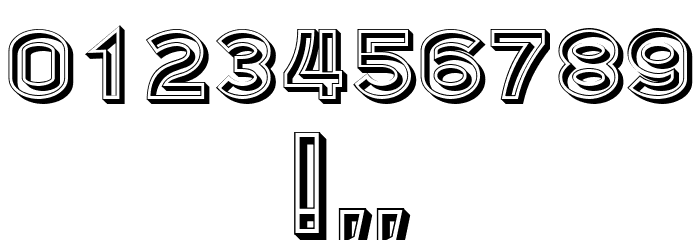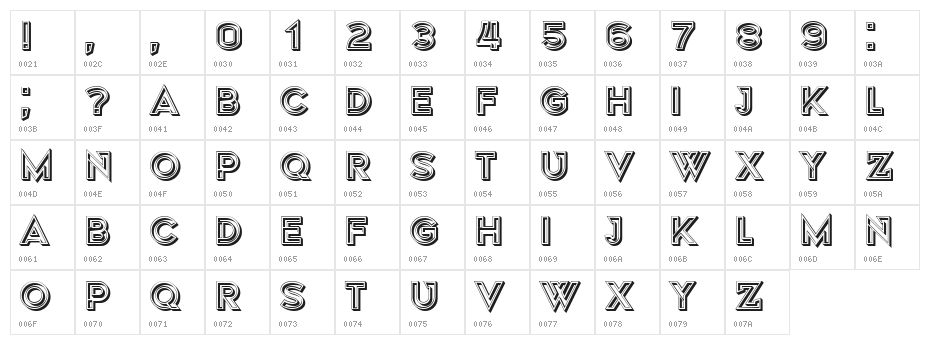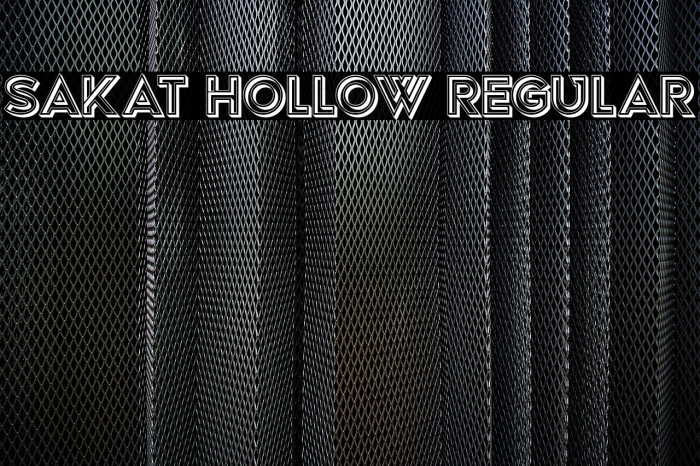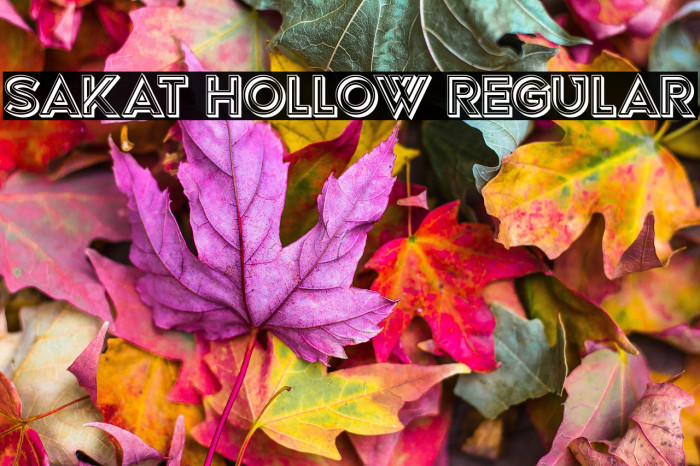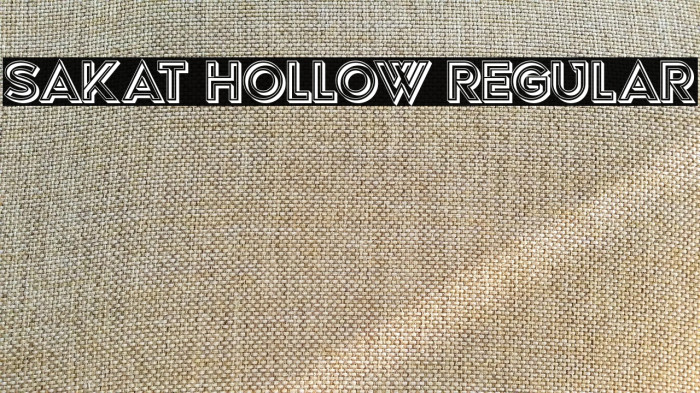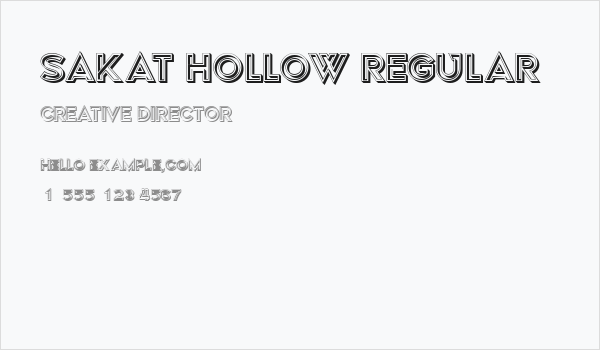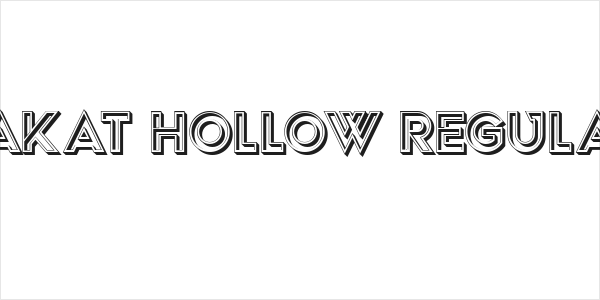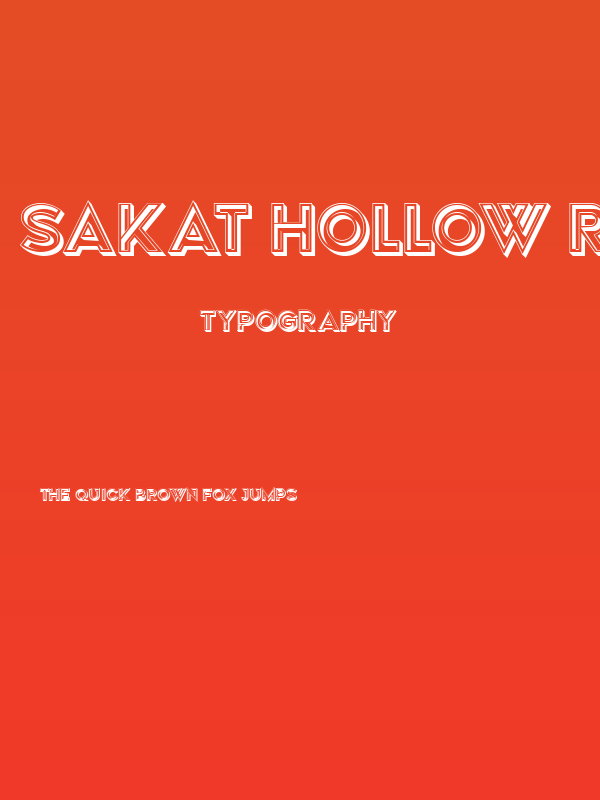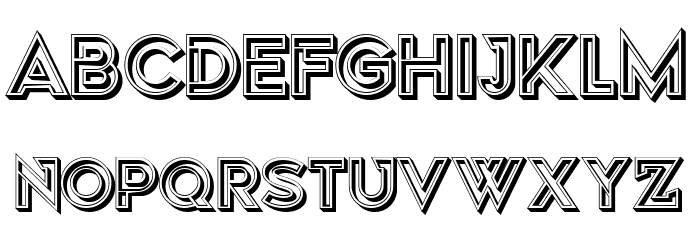
Sakat Hollow Regular Font
Sakat Hollow Regular Description
This font features a bold, hollow design with a strong geometric structure. The characters are outlined with a thick, consistent stroke, creating a striking visual impact. The uppercase letters are particularly prominent, with sharp angles and clean lines that give a modern, architectural feel. The numerals and special characters maintain this bold, outlined style, ensuring consistency across all glyphs. The font's hollow nature allows for creative use of background colors or textures to show through, adding versatility to its application.
| Proposed Projects | Ideal for posters, headlines, logos, and any design requiring a bold, eye-catching typeface. |